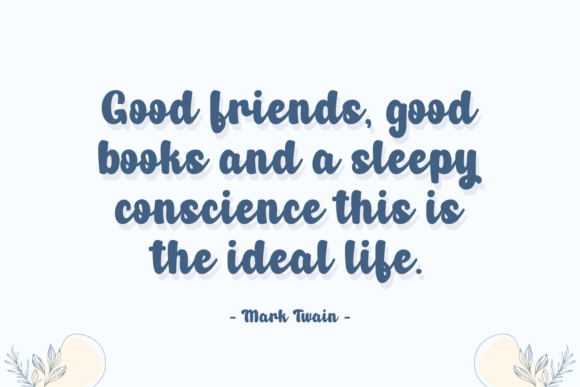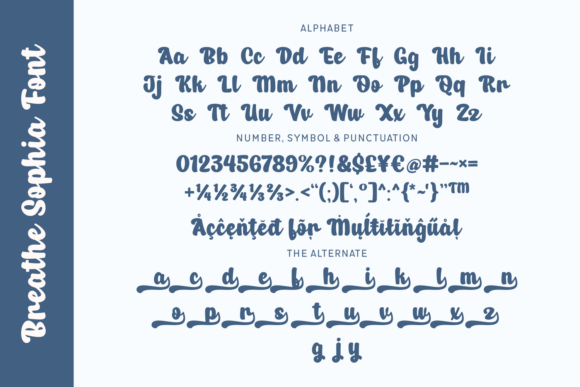
Have you ever stared at a blank canvas, waiting for the perfect font to bring your design to life? The moment of clarity when everything falls into place is pure magic. For designers, finding the right font can make all the difference between a good design and a great one. That’s where the Breathe Sophia Font comes in – a beautiful, bold script font that combines elegance with a modern touch.
This stunning font is perfect for adding a touch of sophistication to your headlines, logos, and invitations. Its smooth curves and strong lines give any text a friendly and artistic feel, making it stand out beautifully. As a valuable addition to any designer’s toolkit, the Breathe Sophia Font is a must-have for anyone looking to elevate their designs to the next level.
Breathe Sophia Font Key Features
- Font Style: Script, Calligraphy
- Unique Characteristics: Elegant, Whimsical, Handwritten, Versatile
Breathe Sophia Font Review
Overall, I’m really impressed with the Breathe Sophia font. It’s a beautiful, elegant script font that would be perfect for wedding invitations, menus, or any other design where you want to add a touch of sophistication. ✨
Here are some things that work well with Breathe Sophia:
- It has a smooth, flowing feel that makes it easy to read.
- The font is highly customizable, with a wide range of sizes, styles, and colors to choose from.
- It’s a great choice for designers who want to create a romantic or vintage vibe in their designs.
- It may not be the best choice for designs where you need a lot of bold, attention-grabbing text. The font is quite delicate and may get lost in busy designs.
- Some users may find the font a bit too ornate or over-the-top, especially if used in excess.
Overall, I’d give Breathe Sophia 4.5 out of 5 stars. It’s a great choice for designers who want to add a touch of elegance to their designs, but may not be the best fit for every project. ⚠️
Tips for Getting the Most Out of the Breathe Sophia Font
To get the most out of the Breathe Sophia font, use it in combination with other elegant and refined design elements, such as cursive scripts and intricate patterns. Experiment with different font sizes and styles to create a unique and sophisticated look. Finally, pair the font with a high-quality image or background to add depth and visual interest to your design.
Common Use Cases for the Breathe Sophia Font
The Breathe Sophia font is commonly used in a variety of design projects, including wedding invitations, business cards, presentations, reports, and other professional materials. Its elegant and refined style makes it perfect for creating sophisticated and polished designs that exude professionalism and style.
Alternatives to Breathe Sophia Font
Compared to Breathe Sophia, Playfair Display has a more classic and traditional feel, while Breathe Sophia is more modern and minimalist. Playfair Display is better suited for formal and upscale designs, whereas Breathe Sophia is more versatile and can be used in a variety of contexts.
Q: Can I customize the Breathe Sophia Font to create a custom version?
Yes, the Breathe Sophia Font is a variable font, which means that it can be customized to create a custom version. You can use font editing software such as FontLab or Glyphs to modify the font’s parameters and create a custom version that suits your design needs.